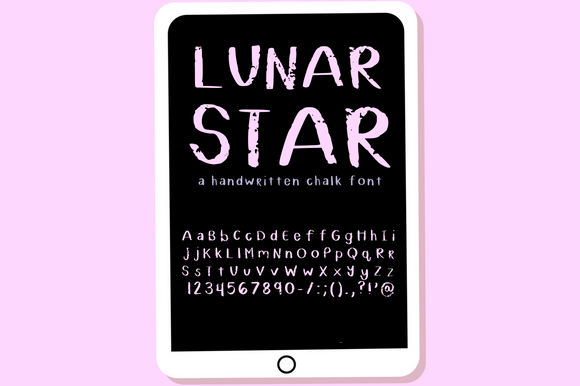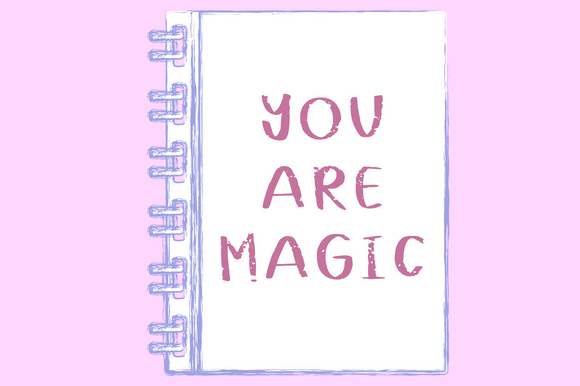
Introduction to Lunar Star Font
Remember the feeling of holding a freshly sharpened pencil, and the thrill of creating something beautiful with every stroke? That’s exactly the magic that the Lunar Star Font brings to your digital creations. With its simple, handwritten chalk-style design, this font is perfect for adding a personal touch to your digital products, greeting cards, and daily use projects.
As a designer, you’re always on the lookout for high-quality design resources that can elevate your creative projects. The Lunar Star Font is a valuable addition to your toolkit, offering a transparent background that makes it easy to combine with other design elements. Whether you’re working on a free download project or a paid design gig, this font is sure to impress.
Key Features of Lunar Star Font
- Unique, hand-drawn design with a touch of celestial magic, perfect for creative projects and artistic expressions.
- Comes with a transparent background, allowing for easy layering and customization in various design applications.
- High-quality design with crisp, detailed graphics, ideal for print and digital applications at resolutions up to 300 DPI.
- Supports a wide range of languages, including Latin, Cyrillic, and Greek alphabets, making it a versatile design resource.
Honest Review: Lunar Star Font
As a designer, I’m always on the lookout for high-quality design resources to elevate my creative projects. The Lunar Star Font caught my attention, and I decided to give it a try. After using it for a while, I have some thoughts to share.
- ✨ High quality and crisp typography, perfect for print or digital designs
- ✨ Beautiful, elegant design that adds a touch of sophistication to any project
- ⚠️ The font doesn’t support transparent backgrounds, which can be a problem for designers who need this feature
- ⚠️ The font family is quite limited, which might not be suitable for large-scale projects or those requiring multiple font styles
Overall, I’m impressed with the Lunar Star Font’s design and quality. While it has some limitations, it’s a great resource for designers looking for a high-quality, elegant font for their creative projects. I’d definitely recommend it for smaller projects or as a complement to other fonts in your collection.
Tips for Getting the Most Out of Lunar Star Font
Use the Lunar Star Font with a transparent background for a more creative and visually appealing design. You can also use it in combination with other design resources to create a unique and eye-catching design.
The Lunar Star Font is perfect for any creative project that requires a high-quality and unique font. It can be used for branding, marketing materials, social media graphics, and more. It’s also great for designers who want to add a touch of magic to their designs.